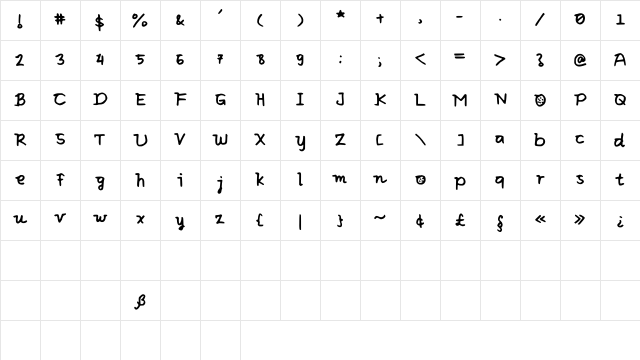
Complete ElicLovesBiscuit Medium glyph index. Displaying only characters natively supported by ElicLovesBiscuit Medium font.
ElicLovesBiscuit is a composed and adaptable typeface that performs quietly and consistently across a wide range of design contexts.